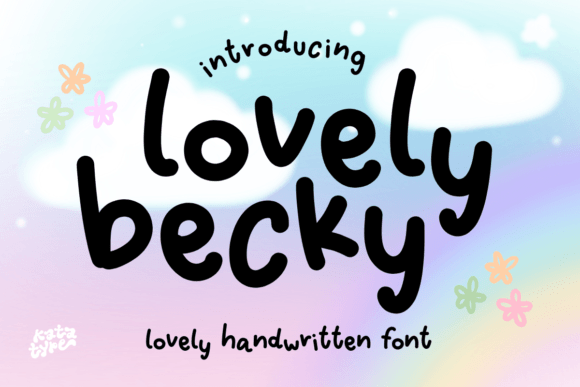
Embark on a typographic journey with Lovely Becky, a captivating handwritten font that exudes an aura of charm and playfulness. Step into a world of whimsy where creativity dances on the page. Lovely Becky's unique character brings life to your designs, effortlessly capturing the essence of easygoing days and leisurely moments.
This enchanting font carries the warmth and spontaneity of a handwritten note, making it an ideal companion for greeting cards, where heartfelt messages take flight. Its playful spirit shines through social media posts, adding a touch of cheer to every digital interaction. And when it comes to branding, Lovely Becky weaves a spell of authenticity and relatability, connecting your brand with customers on a personal level.
Unleash your creativity with Lovely Becky, a font that dances across posters and T-shirts, transforming them into canvases of joy and laughter. Its casual and relaxed feel invites viewers to embrace the beauty of imperfection and celebrate the quirks of life. Whether you're a seasoned designer or just starting your creative adventure, Lovely Becky is your gateway to a world of typographic exploration.
So, let Lovely Becky's magic touch your designs, enchanting them with a sense of wonder and delight. Embrace the carefree spirit of this enchanting font and let your imagination soar to new heights. Download Lovely Becky today and embark on a typographic adventure like no other!